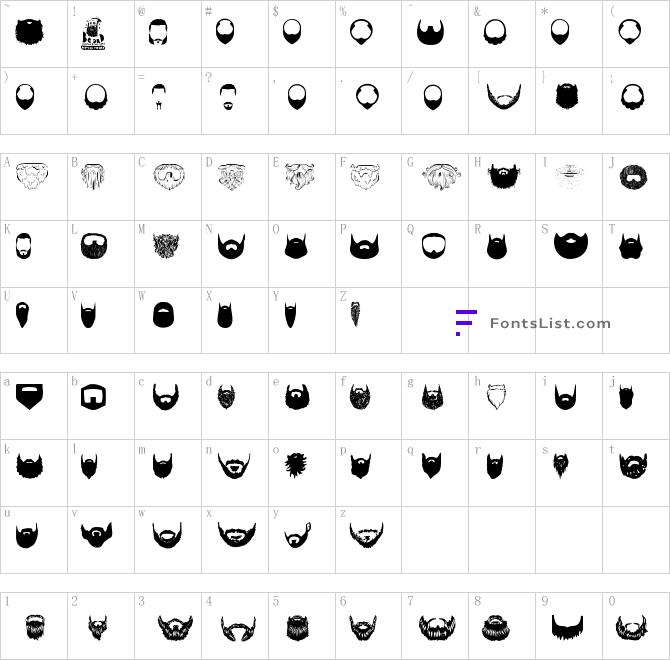
- Font Name:Beard
Beard.ttf is a very beautiful artistic font, Beard.ttf is widely used in the design and printing of various books and pictures,Beard.ttf has a strong visual impact,Beard.ttf is a commonly used font in newspapers, magazines and books, and is used in posters, e-commerce Poster design, store design, logo design, font design and other fields.Beard.